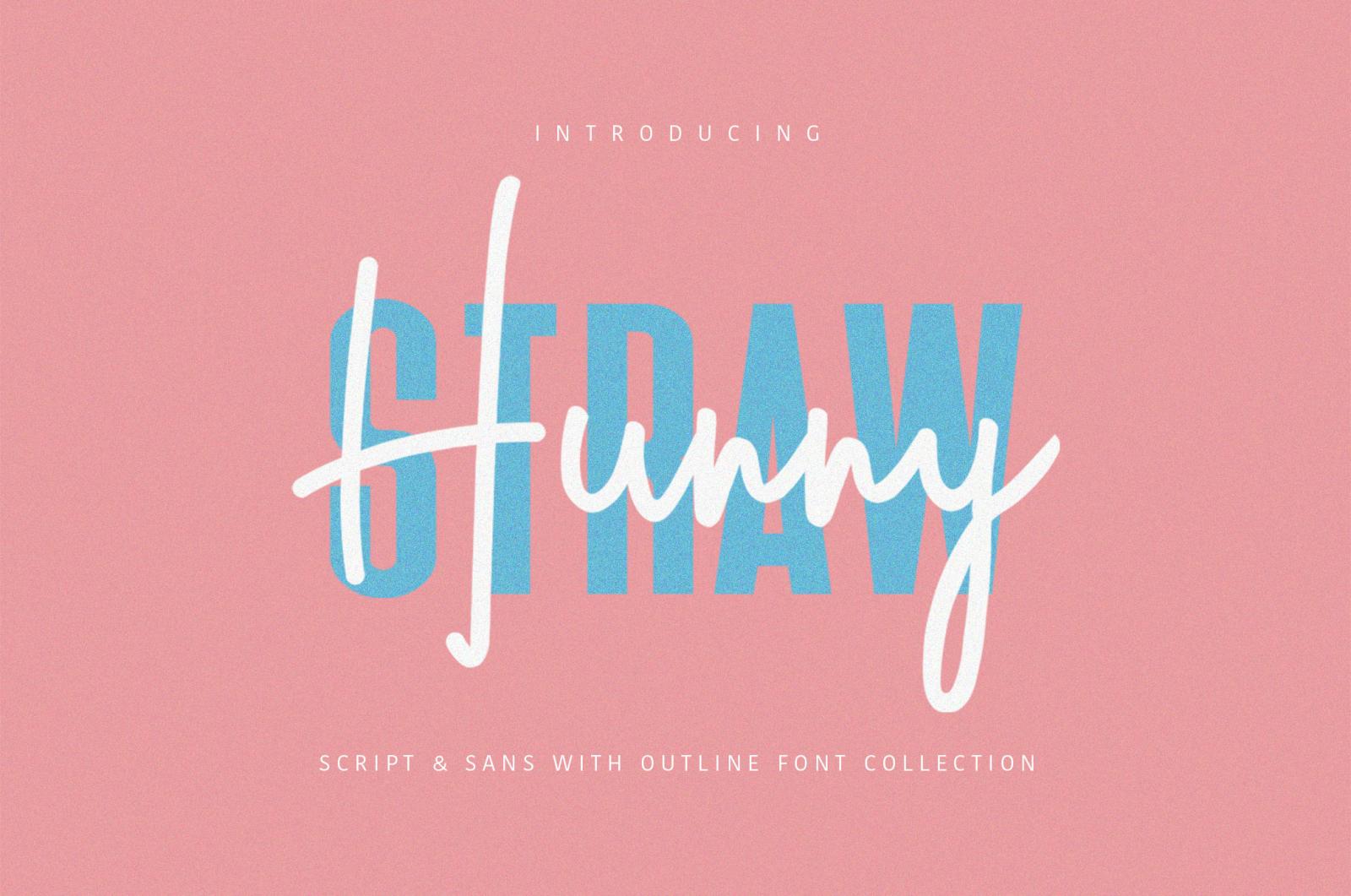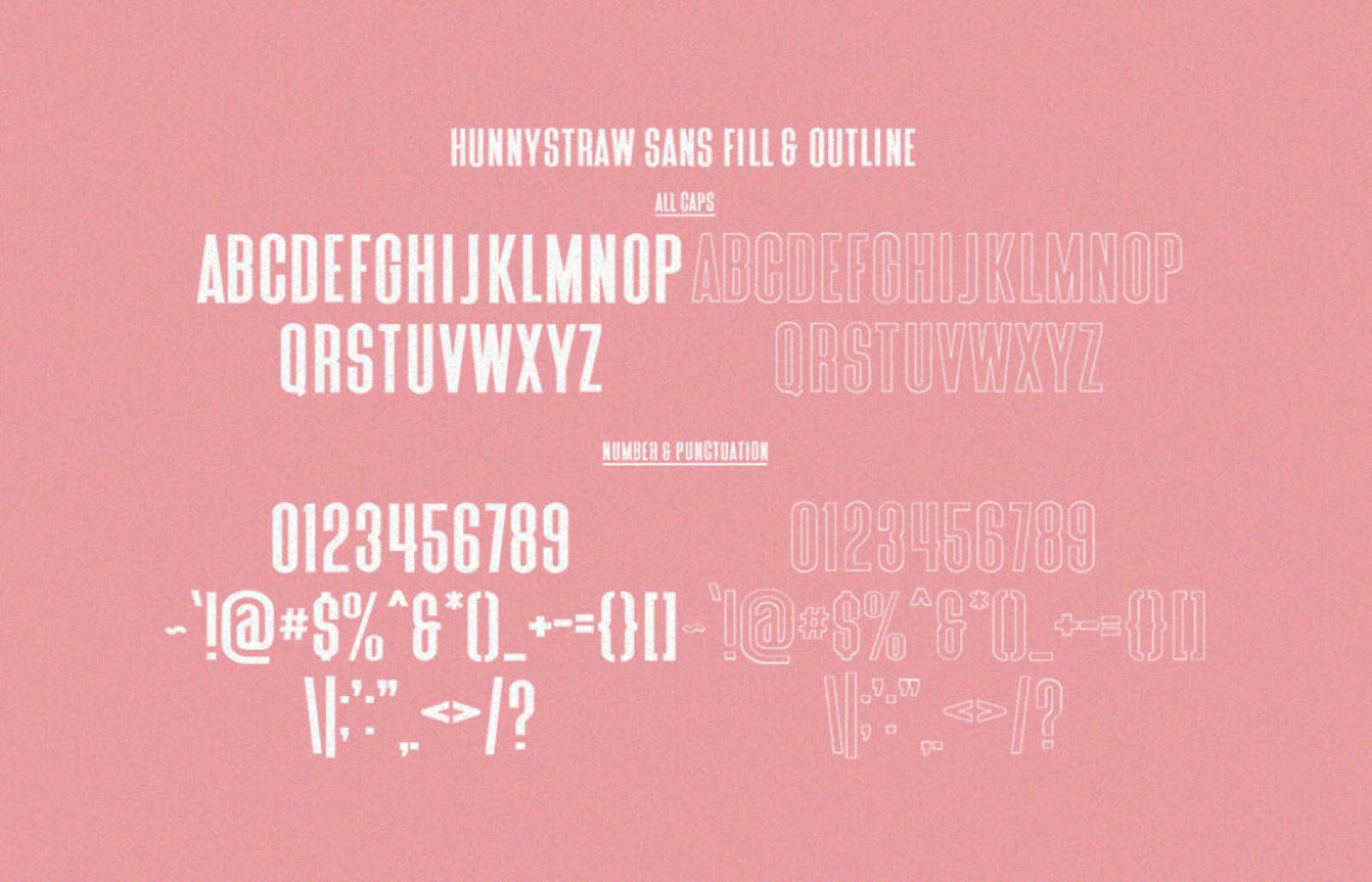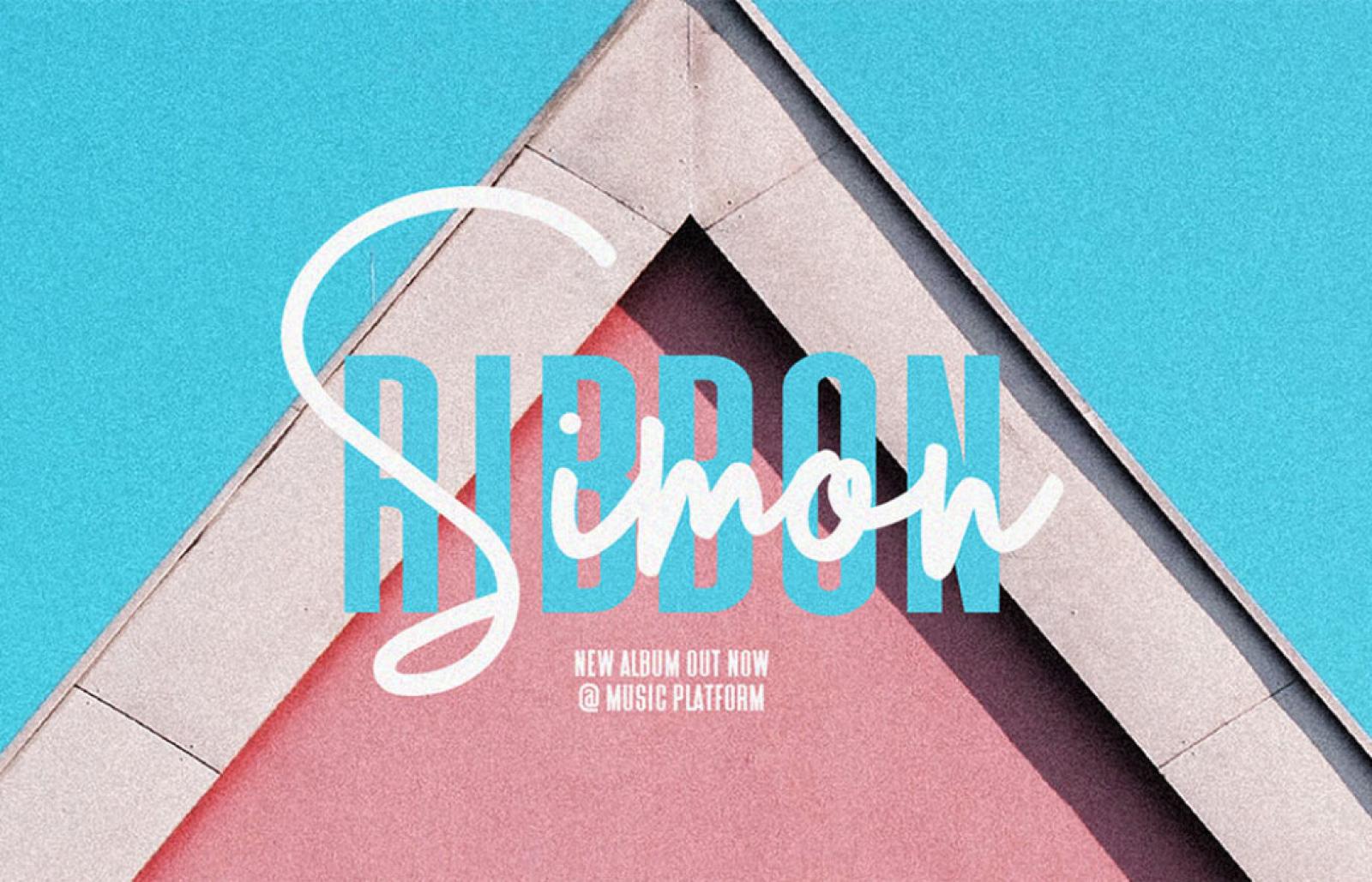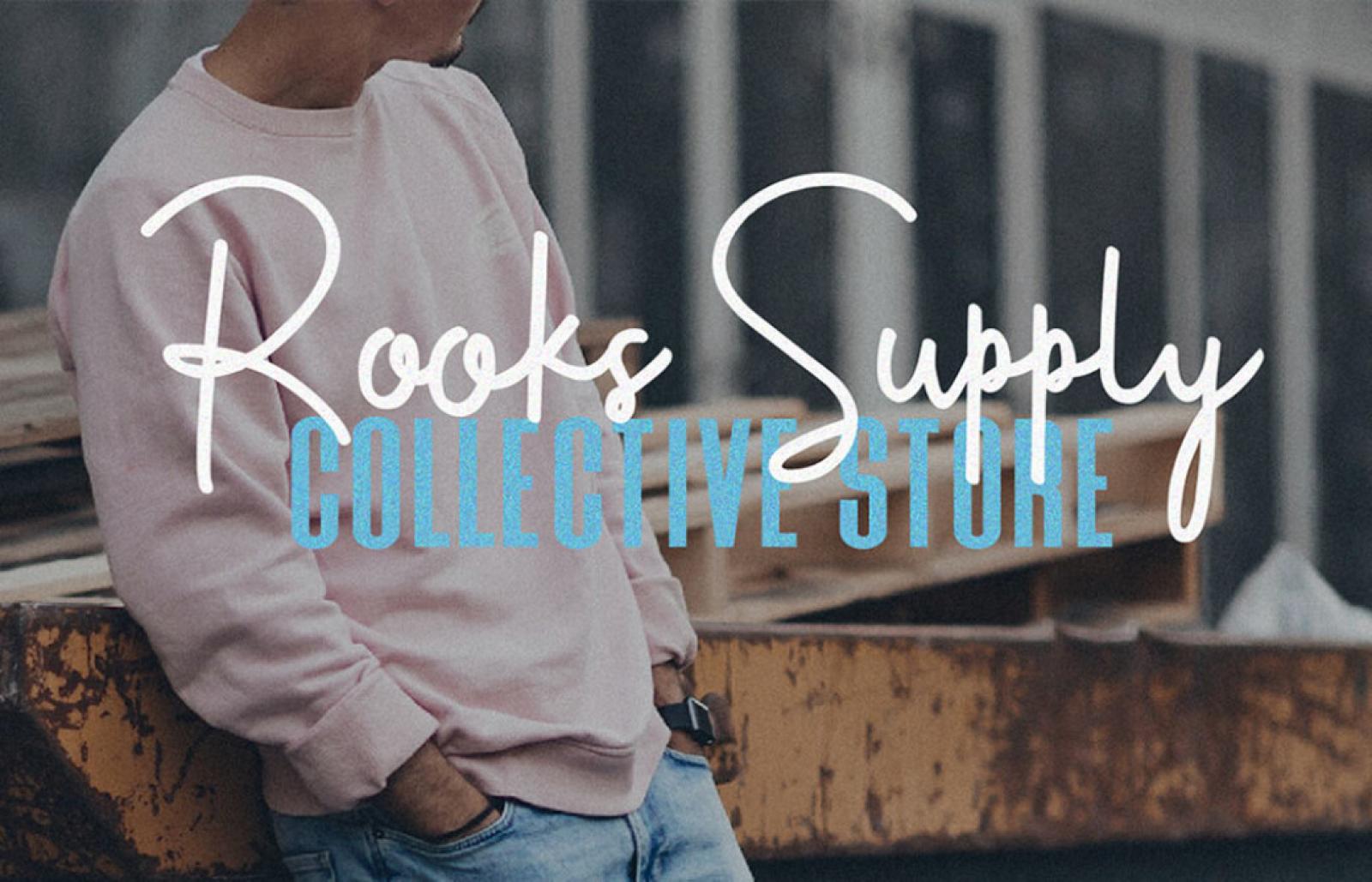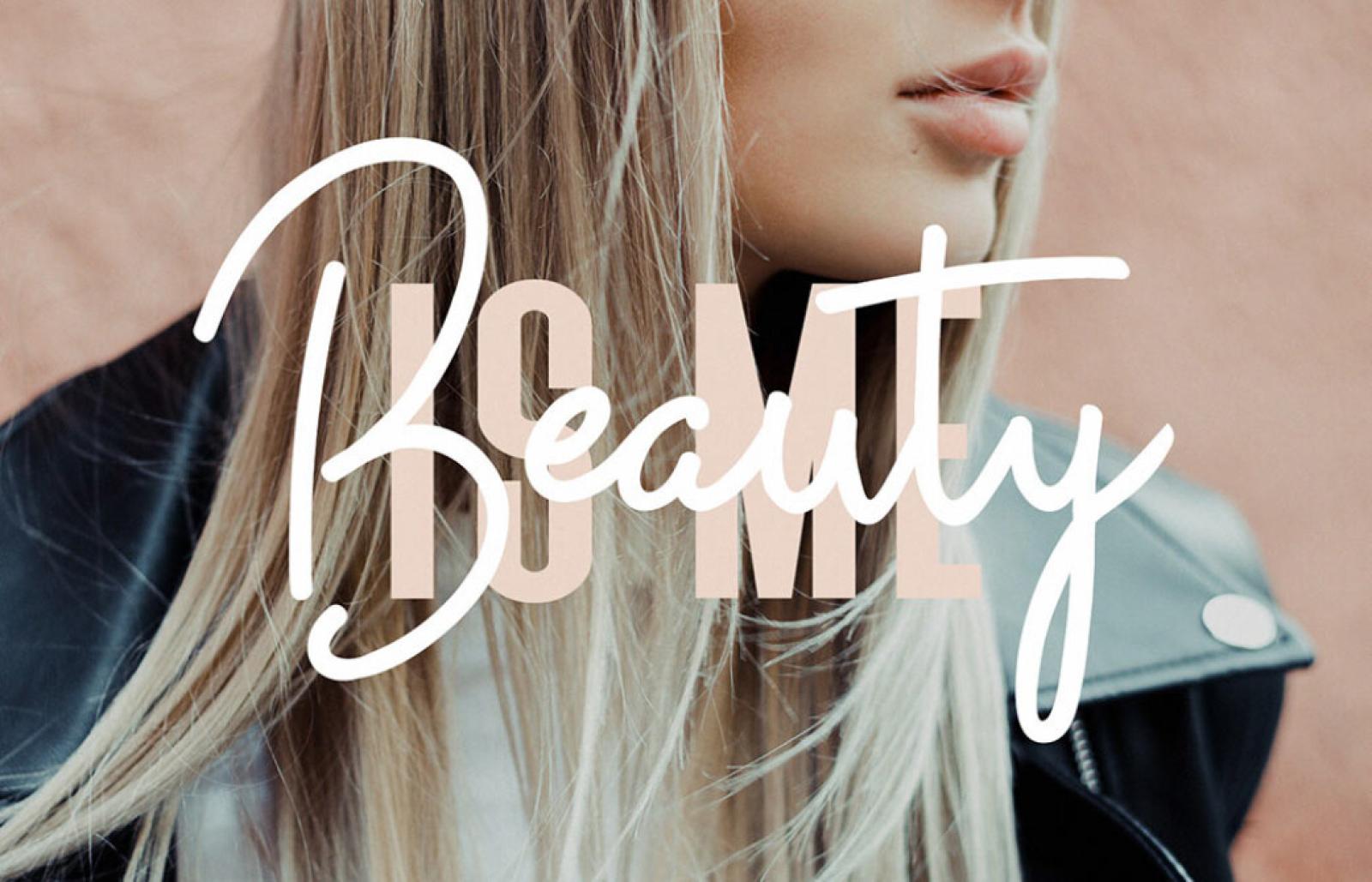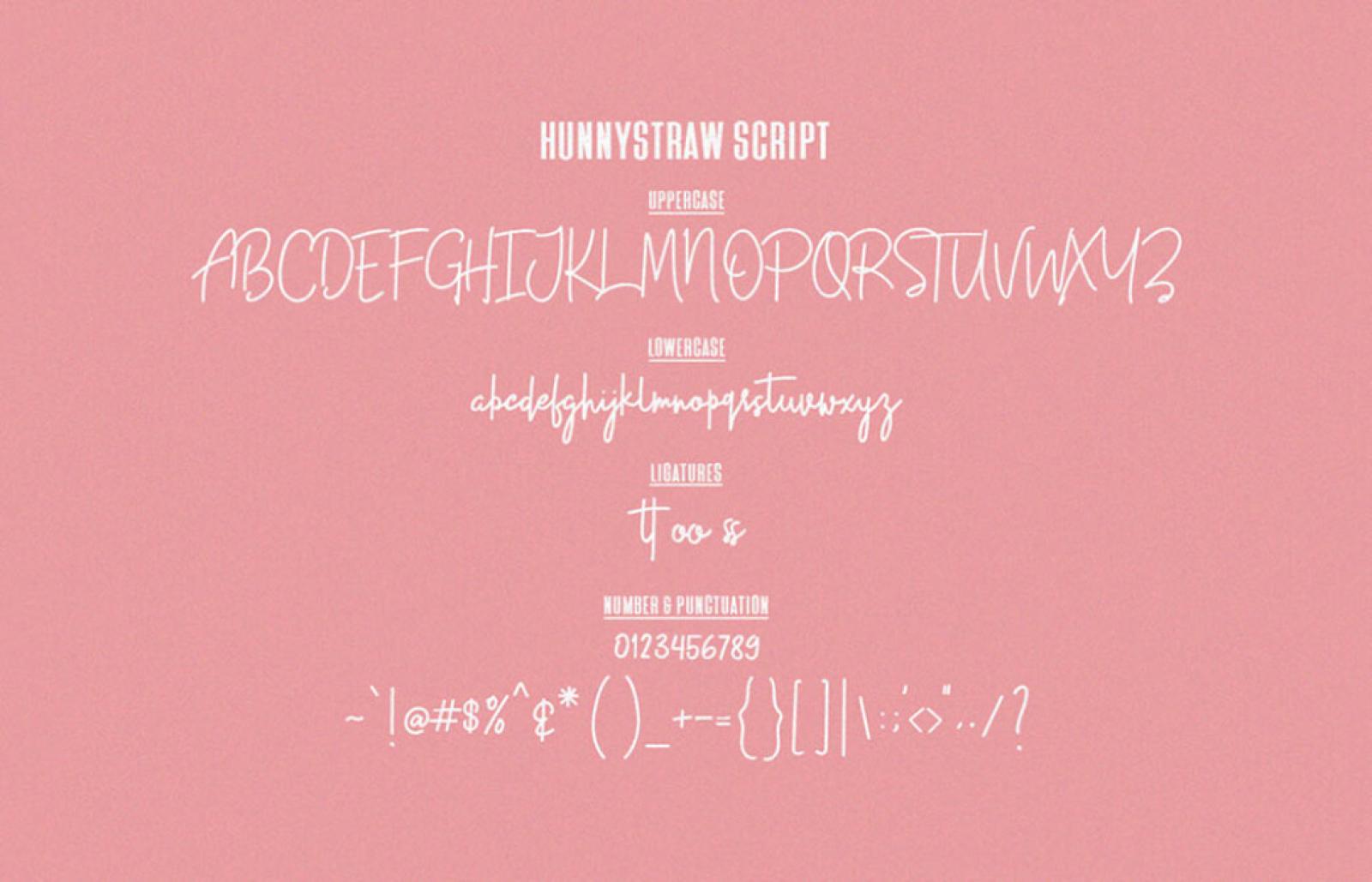
Hunny Straw Font Collection
The mixture of sans serif and script has turned into a brand new font composition, striking everyone with its juicy mood. Carry out an impressive design statement!
Applying the font to your work will provoke a feeling of a proportioned organisation. Clear lines coming along with strong shapes transfer a vivid composition of balance. To our mind, the Hunny Straw can take a significant place in some excellent branding, stationery or web design, logos and typography. Share a cozy warm weather, which the font reminds of!